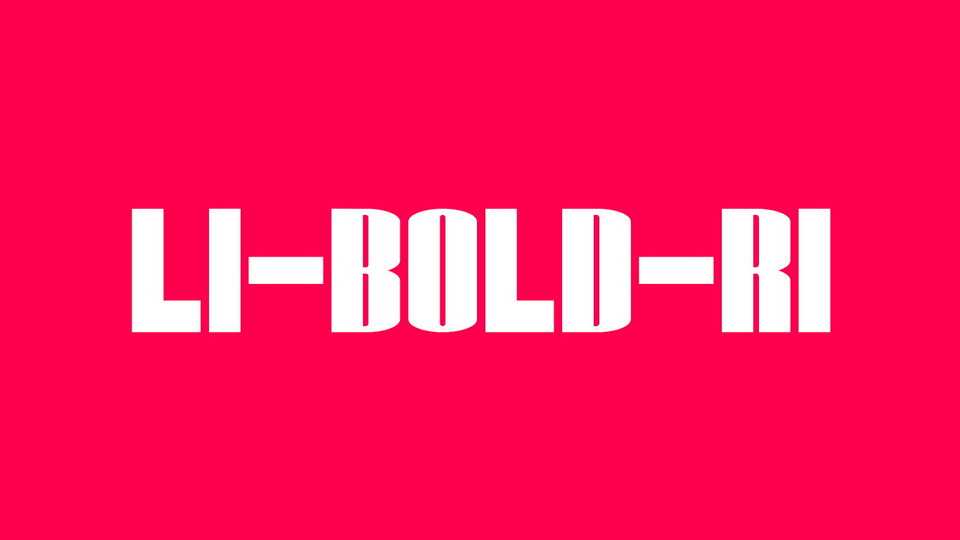
Download Li-Bold-Ri font, a bold high contrast display typeface with a strong and solid personality. Li-Bold-Ri font is ideal for posters and headline design.